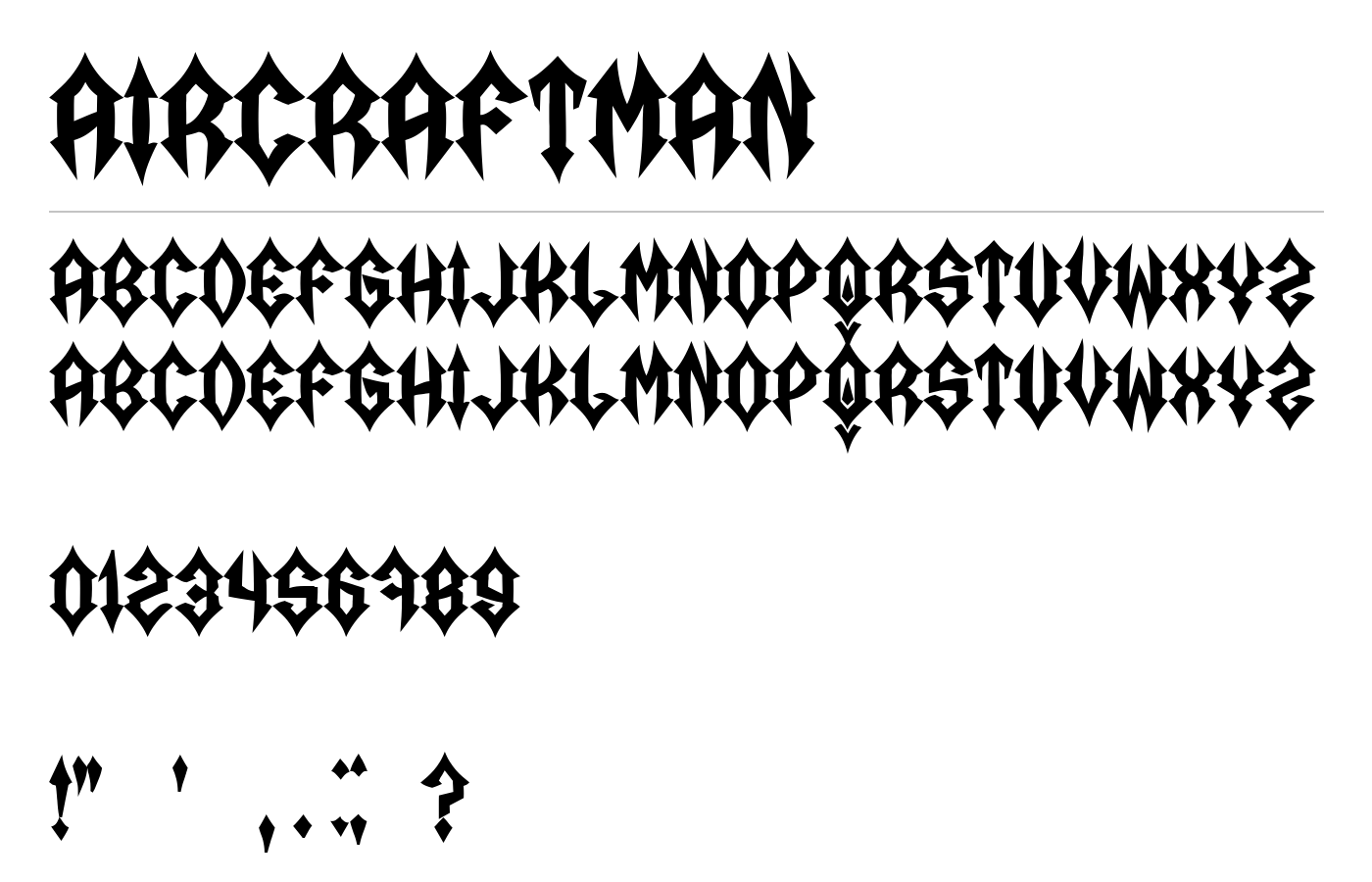
Aircraftman is a bold, highly stylized display font with sharp, angular shapes that create a striking, gothic-inspired appearance. Its condensed letterforms and dramatic pointed edges give it a strong, commanding presence, making it ideal for logos, headlines, and designs that need a bold, intense impact. This font suits edgy, alternative branding and creative projects that want to convey power and distinctiveness.
Aircraftman Font
About Aircraftman Font
| Font family | Aircraftman Font |